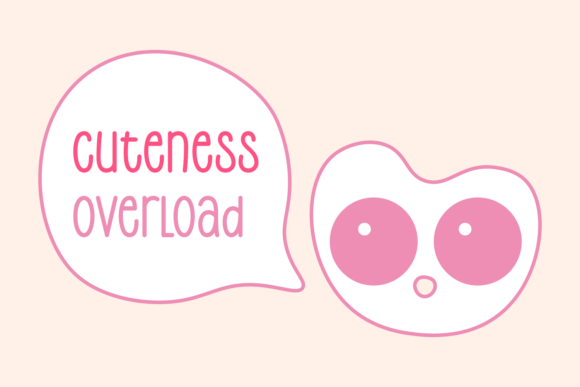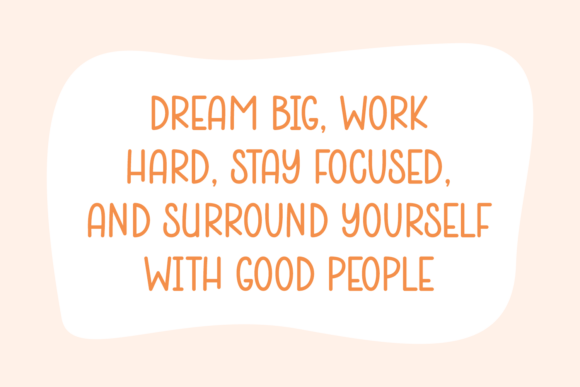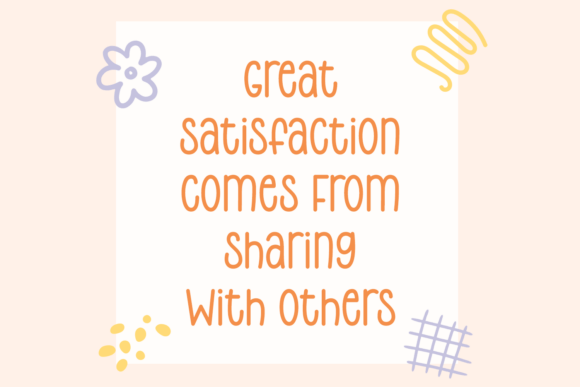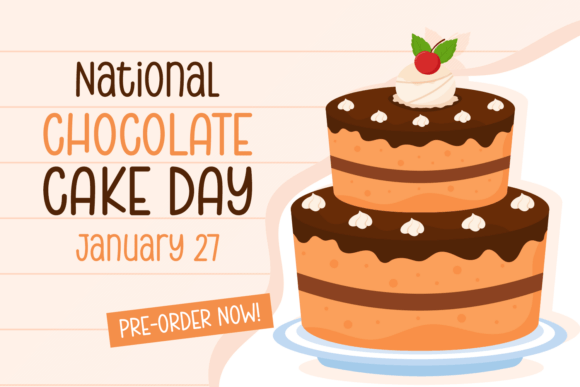
The Designer’s Delight: Easy Share Font
Have you ever been in the middle of a design project, and suddenly, you’re stuck on finding the perfect font? I recall a recent experience where I was working on a social media campaign for a lifestyle brand, and I just couldn’t find a font that captured the friendly, approachable vibe they wanted. That’s when I stumbled upon the Easy Share font, and it was love at first sight! 😍
First Impressions: A Personal Review
As soon as I started using Easy Share, I knew it was something special. Here’s what I love about it:
- ✨ Smooth curves and natural flow that give it a relaxed, friendly feel
- ✅ Effortlessly stylish, adding warmth and personality to any design
- 💬 Perfect for personal notes, social media posts, invitations, and creative projects
Of course, no font is perfect, and there are a few small quirks to keep in mind:
- 🤔 Some letters may appear a bit too casual or irregular for very formal projects
- ⚠️ Limited availability of certain OpenType features, but more on that later
Exploring OpenType Features
Easy Share supports some OpenType features that can enhance your designs:
| Feature | Description |
| Glyphs | Alternate characters for creative variation |
| Stylistic Alternates | Different font styles for emphasis or contrast |
The Story Behind Easy Share
Easy Share was designed with the intention of creating a friendly, approachable font for everyday use. The designer aimed to craft a font that felt like a conversation with a close friend – warm, inviting, and relaxed.
- Q: Is Easy Share suitable for formal projects?
- A: While Easy Share is a beautiful font, it may not be the best fit for very formal projects due to its casual, handwritten nature.
- Q: Does Easy Share support OpenType features?
- A: Yes, Easy Share supports some OpenType features, including glyphs and stylistic alternates.